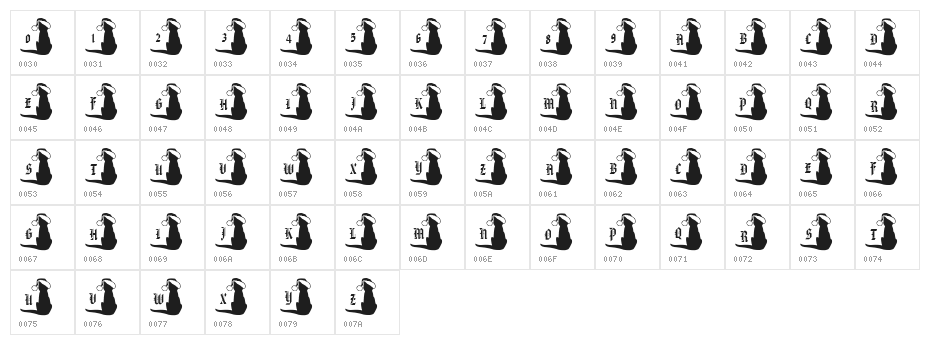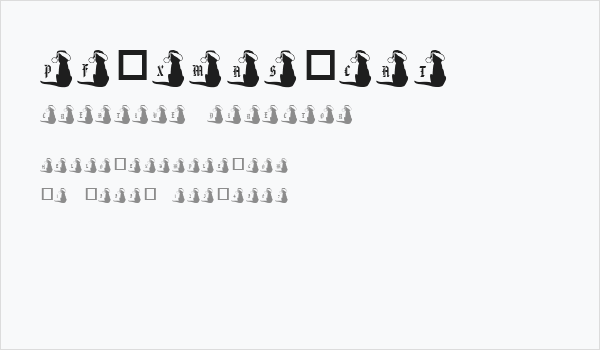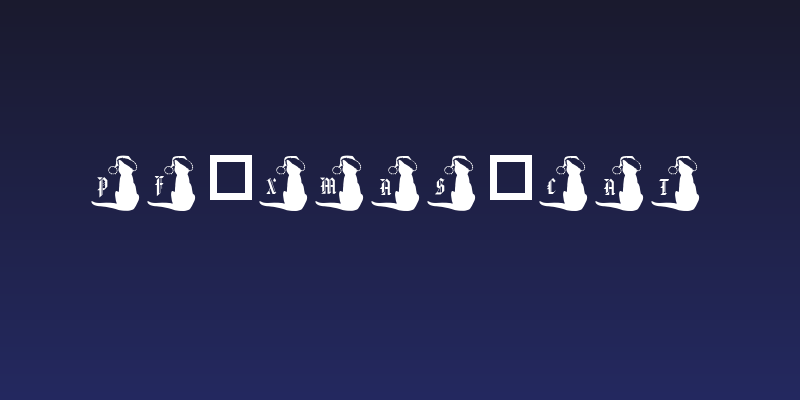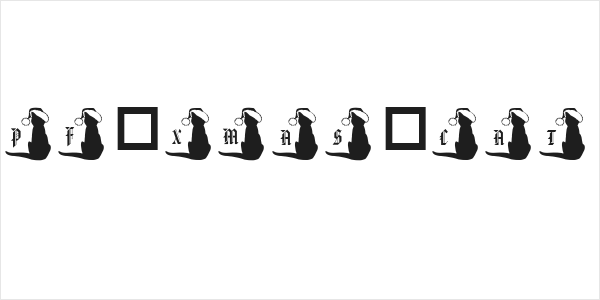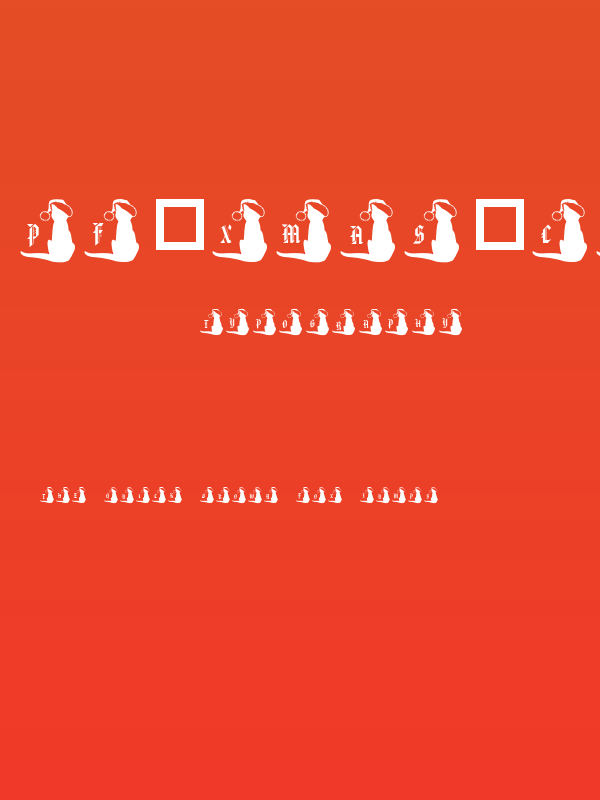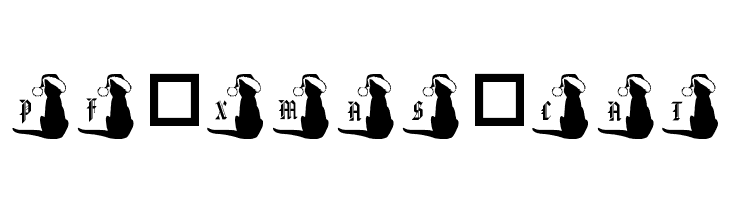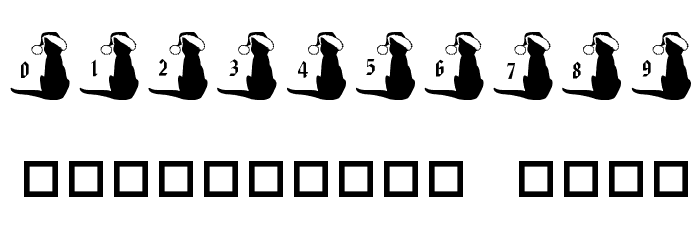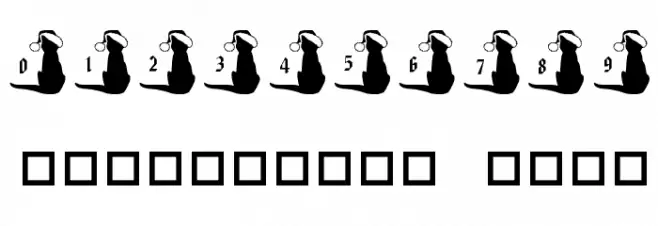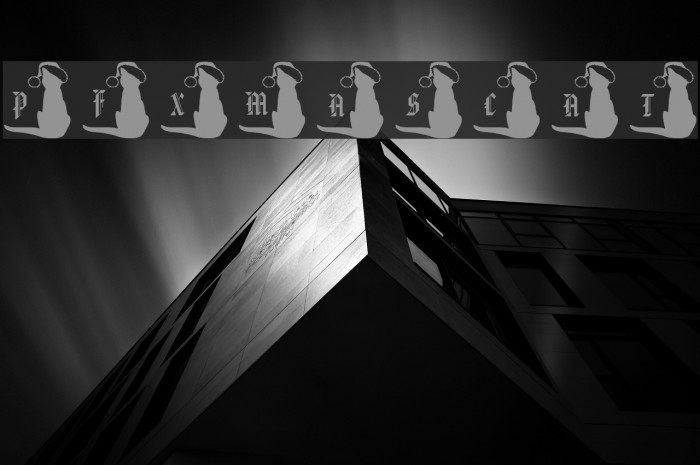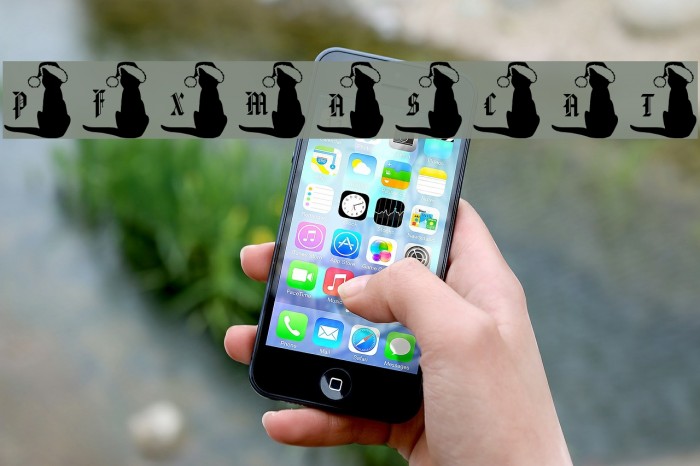
pf_xmas_cat Font
pf_xmas_cat Description
This whimsical and festive font features each letter and number adorned with a playful silhouette of a cat wearing a Santa hat. The characters are designed in a blackletter style, giving them a traditional and ornate appearance. The combination of the classic letterforms with the charming cat motif creates a unique and eye-catching design. The font is perfect for holiday-themed projects, adding a touch of fun and elegance. The characters are well-defined, with a medium contrast in stroke thickness, making them suitable for decorative purposes.
| Proposed Projects | Ideal for holiday cards, festive invitations, seasonal posters, and playful branding. |